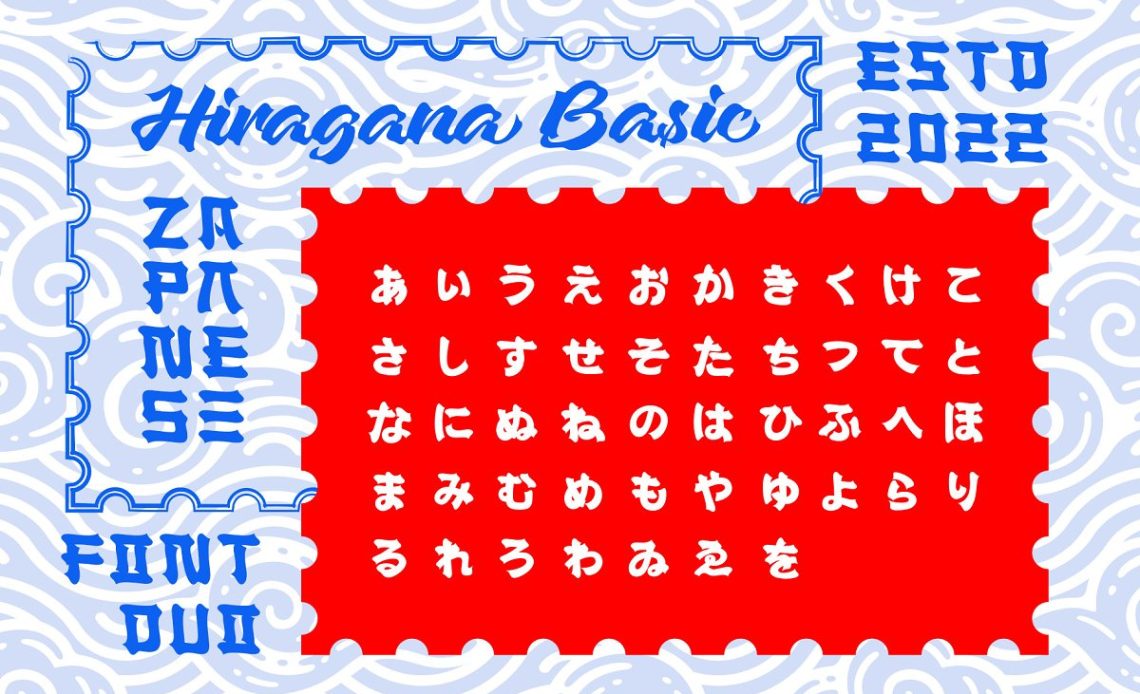
Welcome to the world of Zapanese Font Duo +Extra, a beautifully designed script font family that is perfect for any design project! Created by the talented font designer, Farhan Sudibya, Zapanese Font Duo +Extra is a must-have for anyone looking for a unique and eye-catching font that can elevate their designs to the next level.
The Zapanese Font Duo +Extra comes with two versions, including additional Japanese elements, making it the perfect choice for anyone looking for a font for stamp designs. With support for Glyphs Basic Hiragana and Basic Katakana, as well as PUA encoded characters, Zapanese is fully accessible without additional design software. Plus, it includes a range of multilingual characters, making it versatile for any design project.
Originally published as the Zapan Script in 2019, the Zapanese font quickly became a fan favorite, and the designer decided to develop it into a duo font with additional Japanese elements. Whether you're designing a logo, signage, label, poster, dropcap, titles, letterhead, book cover, or any other design project, Zapanese is a perfect choice.